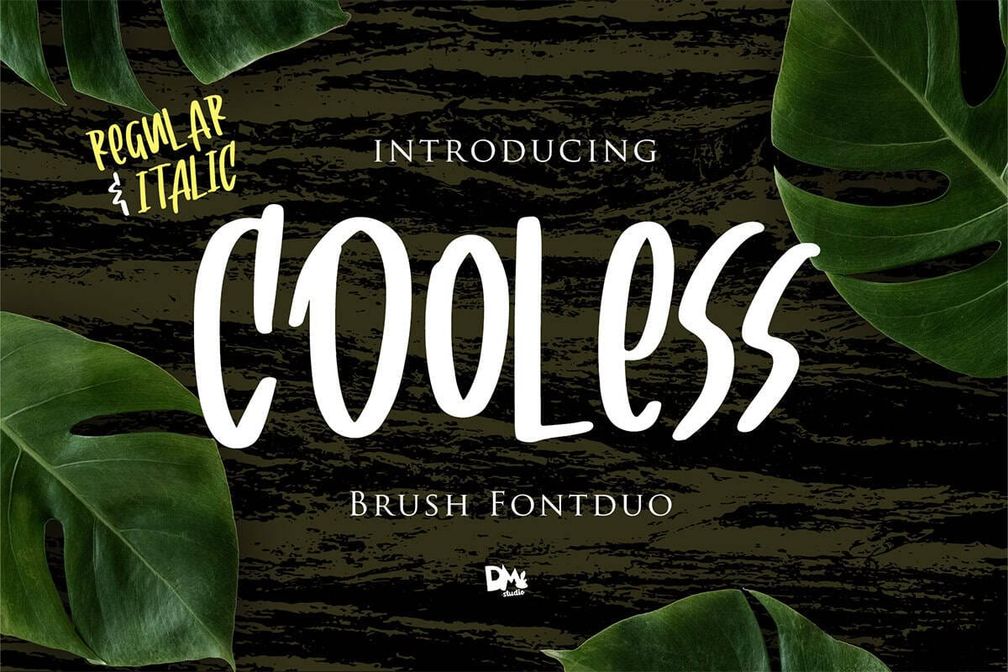
- Cooless – Brush Font Duo
Grab this modern, catchy and stylish brush font for your crafty project! Great for your craft, tshirt, card or printing project, business project, and much more! Including regular and italic version
Features :
- ALL IN CAPS character set
- Numeric
- Standard Punctuation and symbols
- Ligatures CC, EE, LL, OO, SS, TT
- Regular and Italic Version